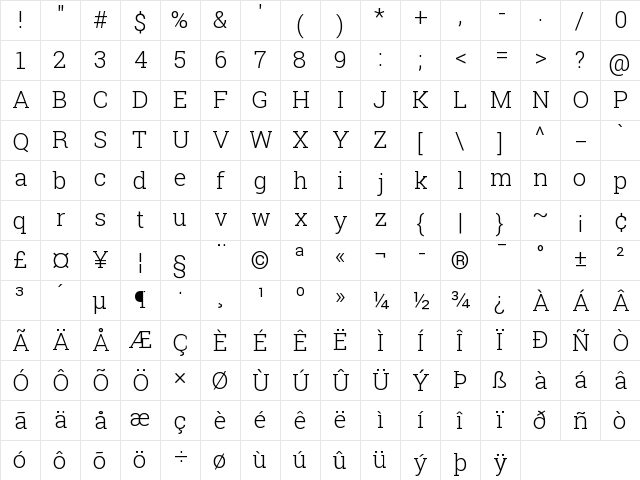
Roboto Slab Light
Design Context for Roboto Slab Typeface
Roboto Slab combines the readability of serif typography with the visual weight of a slab construction, resulting in a typeface that feels both authoritative and approachable. Its slender proportions lend an understated elegance to any composition.
Works well in editorial design, news publishing, impactful branding, and poster typography.
Pro Tip: Try Roboto Slab set tight in headlines for a classic editorial feel. Its slab serifs create strong horizontal rhythm that anchors a page layout.